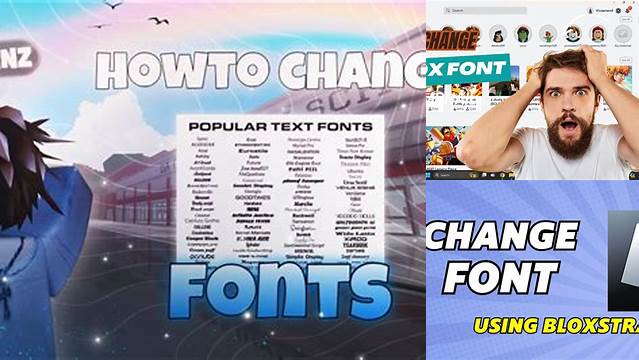
Change Roblox Font On Mac: A Simple Guide
Let's dive into how you can change fonts on Roblox on your Mac. While Roblox doesn't directly offer an in-game setting to tweak the fonts, there are some workarounds you can use to customize the look of your text in the game. Keep in mind that these methods involve modifying the game files, so always proceed with caution and back up any important data before making changes. Customizing your Roblox experience can be a fun way to personalize your gameplay, and changing the fonts can add a unique touch that makes the game feel more like your own. This article will guide you through the steps and considerations to keep in mind as you embark on this customization journey. Remember, always prioritize safety and follow best practices to ensure a smooth and enjoyable experience.
Understanding Roblox Fonts on Mac
Understanding Roblox fonts on Mac is the first step in customizing your gaming experience. Roblox, by default, uses a specific font for its user interface and in-game text. This font is embedded within the application files, which means that to change it, you'll need to access and modify these files directly. On a Mac, applications are typically stored in the /Applications
Step-by-Step Guide to Changing Roblox Fonts
Potential Issues and Troubleshooting
When changing Roblox fonts, you might encounter potential issues. One common problem is that the game may crash or fail to launch after you've replaced the font files. This can happen if the new font is not compatible with Roblox or if the font file was not renamed correctly. To troubleshoot this issue, the first step is to restore the original font files from the backup you created earlier. This will revert the game to its default settings and should resolve any compatibility issues. If the game still crashes after restoring the original fonts, there may be another issue at play, such as corrupted game files or a conflict with other software on your Mac. Another potential issue is that the new font may not display correctly in the game. This could be due to the font not supporting certain characters or symbols, or it could be a problem with the font rendering engine in Roblox. To address this, try using a different font that is known to be compatible with the game. Additionally, make sure that the font file is properly formatted and that it is not corrupted. Sometimes, simply re-downloading the font file can resolve the issue. It's also important to ensure that you have the latest version of Roblox installed on your Mac. Outdated versions of the game may have compatibility issues with certain fonts. By staying up-to-date with the latest updates, you can minimize the risk of encountering font-related problems. If you continue to experience issues after trying these troubleshooting steps, consider seeking help from the Roblox community or contacting Roblox support for assistance. They may be able to provide additional guidance or identify any underlying issues that are causing the problem. Remember, always proceed with caution when modifying game files and back up your data to prevent any data loss.
Choosing the right font is crucial for enhancing your Roblox experience. The font you select should not only be aesthetically pleasing but also highly readable. A font that is difficult to read can strain your eyes and detract from your enjoyment of the game. Consider fonts that are clear, simple, and easy to distinguish, even at small sizes. Sans-serif fonts, such as Arial, Helvetica, and Open Sans, are often a good choice for user interfaces because they tend to be more legible than serif fonts, such as Times New Roman or Georgia. Additionally, think about the overall style and theme of your Roblox game. If you're playing a futuristic game, a sleek and modern font might be appropriate. On the other hand, if you're playing a historical game, a more traditional font might be a better fit. It's also a good idea to test out different fonts to see how they look in the game's interface. Roblox uses fonts in various contexts, such as chat messages, menus, and game descriptions, so it's important to choose a font that works well in all of these areas. Pay attention to the font's character set as well. Make sure it supports all the characters and symbols that are used in the game. Some fonts may not include certain special characters, which could cause issues with text display. Finally, consider the font's license. If you're using the font for commercial purposes, make sure that the license allows for this. There are many free fonts available online, but some of them may have restrictions on how they can be used. By taking these tips into account, you can choose a font that enhances your Roblox experience and makes the game more enjoyable to play.